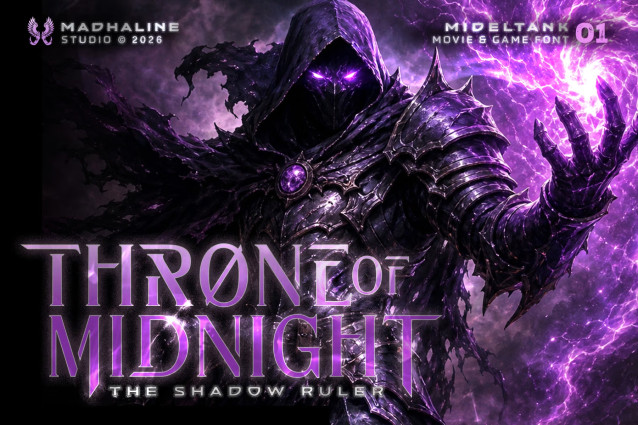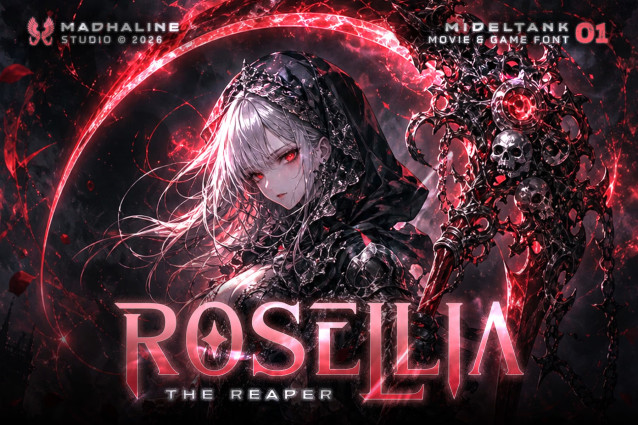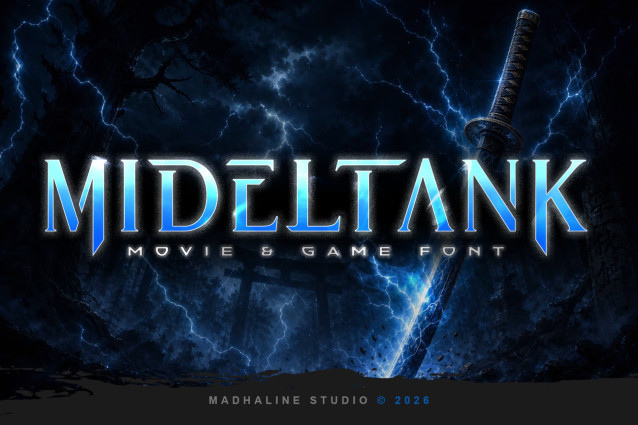
MIDELTANK Movie & Game Font
Mideltank is a bold, sharp fantasy display font designed for high-impact cinematic and gaming visuals. Featuring aggressive, blade-like serifs, chiseled terminals, and an imposing vertical presence, this typeface carries a dark, mythic energy reminiscent of epic battlefields and ancient sorcery.
Natural fits include video game titles, fantasy movie posters, book covers, esports branding, and tabletop gaming logos. It is best suited for large-scale headlines, promotional banners, and merchandising where its dramatic, sharp-edged letterforms can command attention.